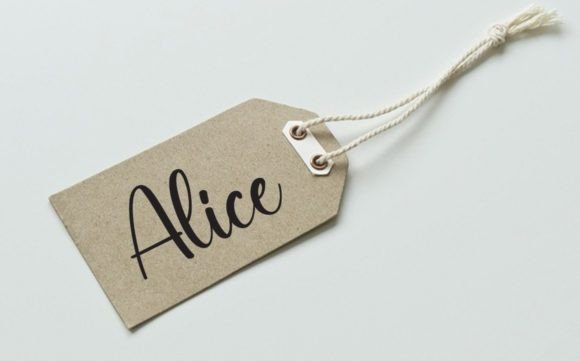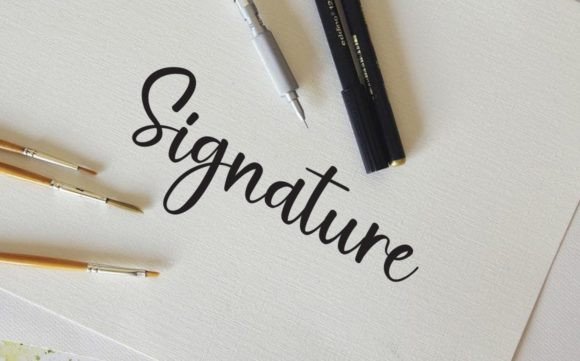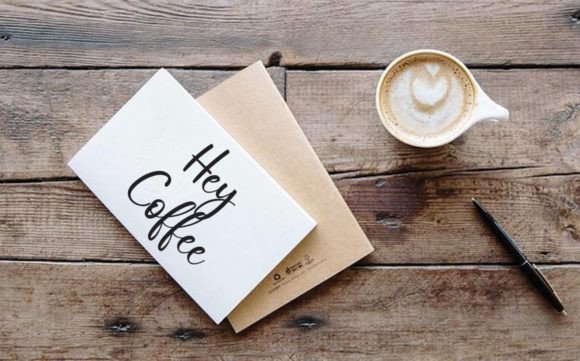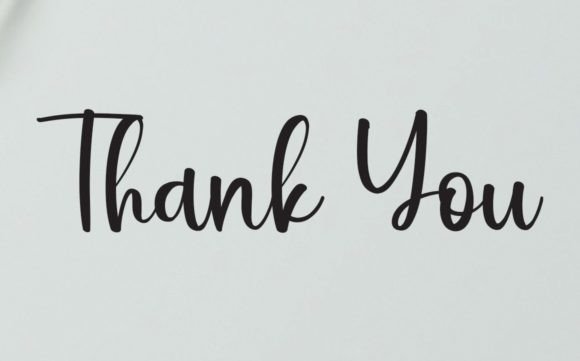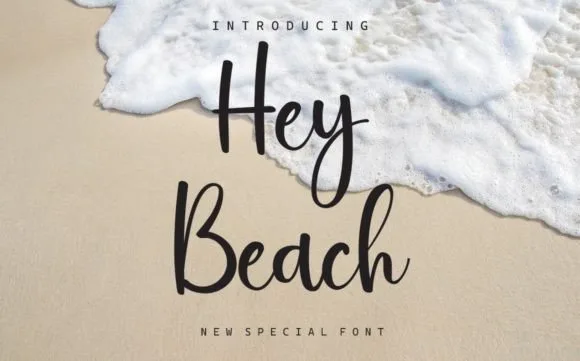
Hey Beach Font
About Hey Beach Font
“Hey Beach” is a delightful and charming handwritten font that exudes a sense of warmth and playfulness. Its friendly and approachable style makes it a versatile choice for a wide range of creative projects. With its whimsical and romantic vibe, this font is particularly well-suited for projects that aim to evoke feelings of love, joy, and lightheartedness.
The versatility of “Hey Beach” allows it to be used in various applications. Whether you’re designing greeting cards, Valentine’s Day cards, headlines, social media posts, or any other project, this font brings a delightful and romantic touch to your work. Its natural and organic letterforms create a sense of authenticity, giving your designs a personal and handmade feel.
“Hey Beach” adds a touch of sweetness and charm to your projects, making it ideal for capturing the essence of love and affection. Its playful yet elegant design can enhance the overall appeal of your creations, making them stand out and leave a lasting impression on the audience.
Embrace the delightful spirit of “Hey Beach” in your next project, and let its romantic and playful vibe infuse your designs with a sense of joy and love. Whether you’re creating heartfelt greeting cards, cheerful social media graphics, or expressive headlines, this font will add a touch of romance and sweetness to your creative endeavors.